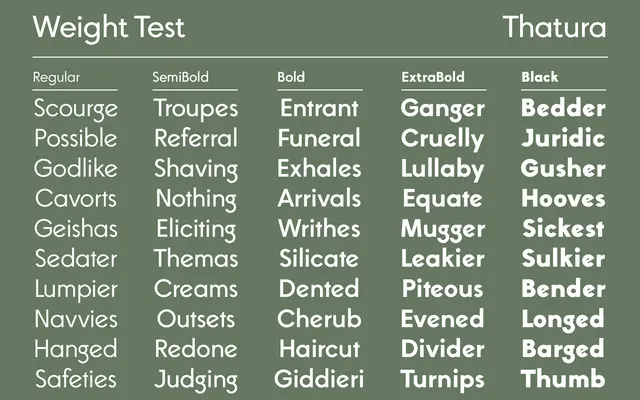
Thatura Variable Family
A geometric sans with variable weight and a suite of OpenType alternates that let you toggle between restrained and playful character sets.
Built on geometric foundations, Thatura offers five named weights from Regular to Black plus a variable font, with stylistic alternates covering sharp ascenders, sharp crotches, a single-storey g, an off-axis e and a simplified u. Small capitals, oldstyle figures, ligatures and full superscript and subscript sets round out a feature-rich package. The result sits between a disciplined geometric workhorse and a display face with personality, depending on which alternates you switch on.
Thatura is explicitly described as a geometric sans family, with construction details such as sharp corners, off-axis letterforms and alternative g designs that place it firmly in the geometric tradition with quirky departures.